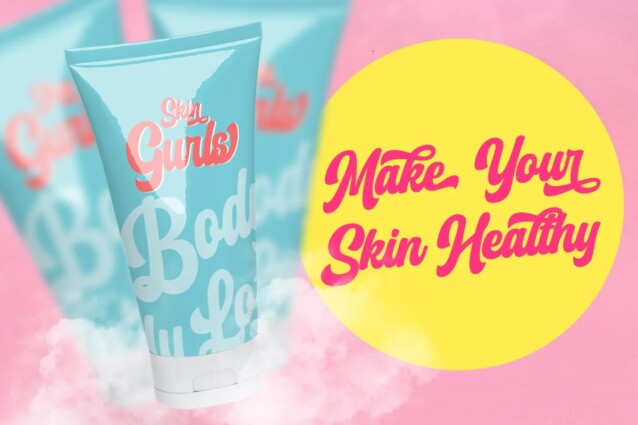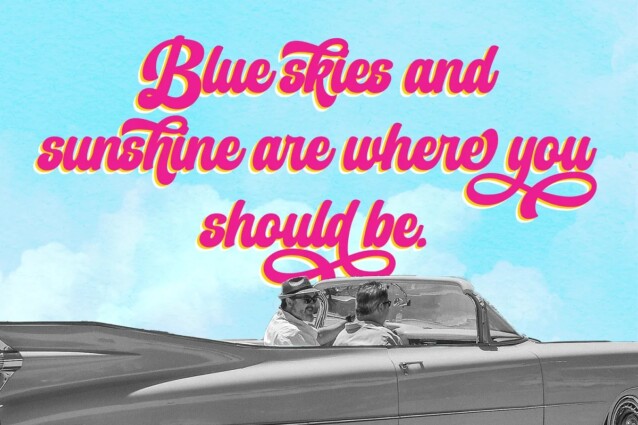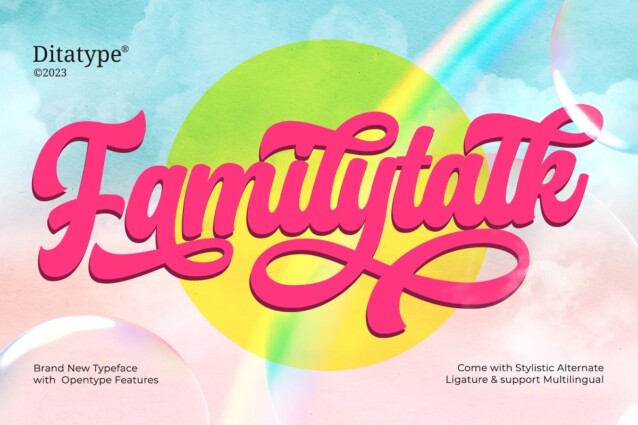
Familytalk Font
Familytalk Font is a captivating and versatile bold retro typeface that effortlessly transports your designs back in time while adding a touch of modern flair. The swinging endings on certain letters provide a delightful sense of rhythm and flow to the text, giving your words a dynamic and expressive character. These unique design elements create a sense of movement within the text, making it visually captivating and engaging.
Despite its thick weight, Huntinghat maintains excellent legibility, making it suitable for a wide range of creative applications. Its ability to strike a balance between boldness and grace makes it a versatile choice for projects that demand a strong and stylish script font. In addition, enjoy the features here.